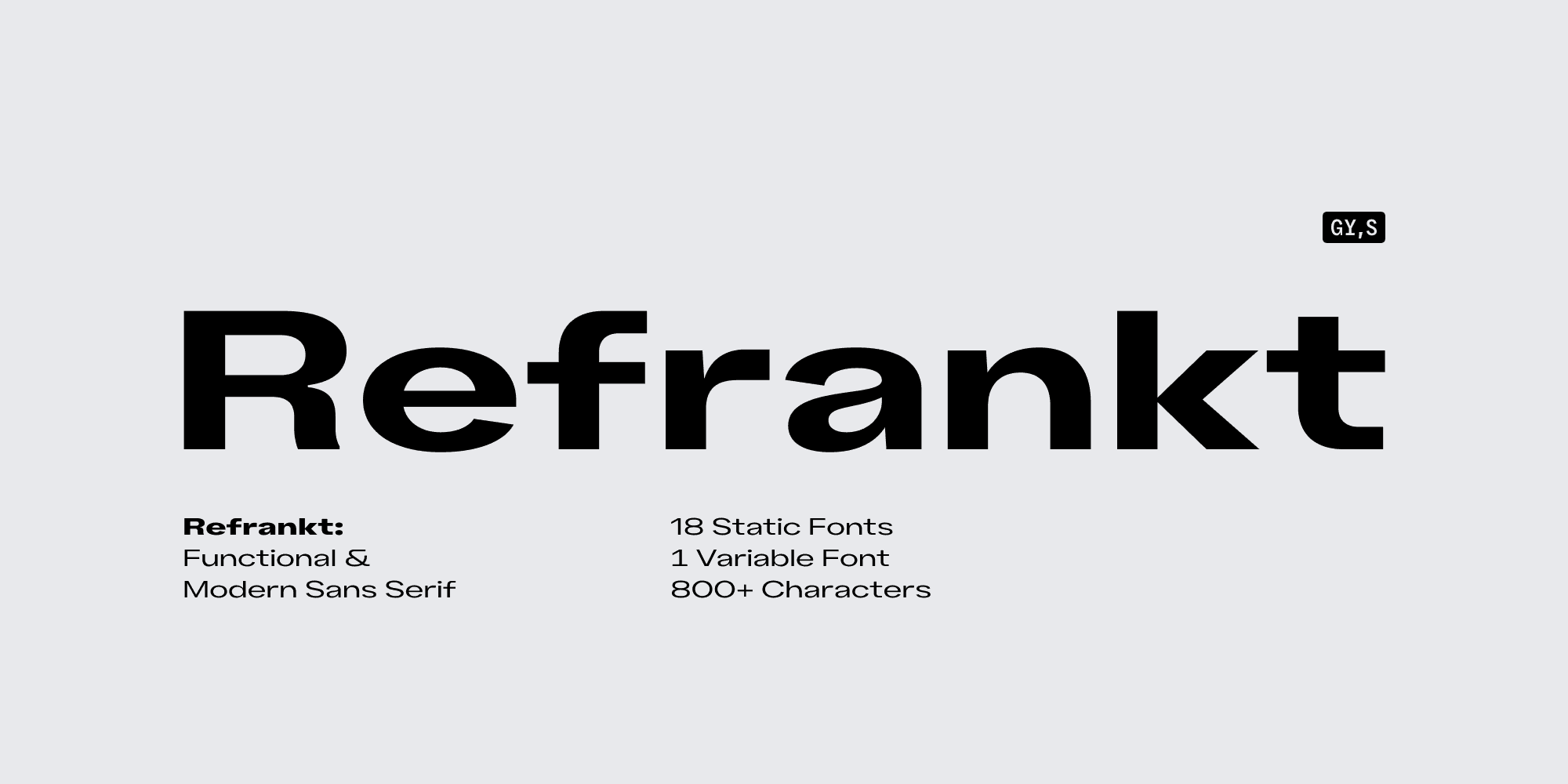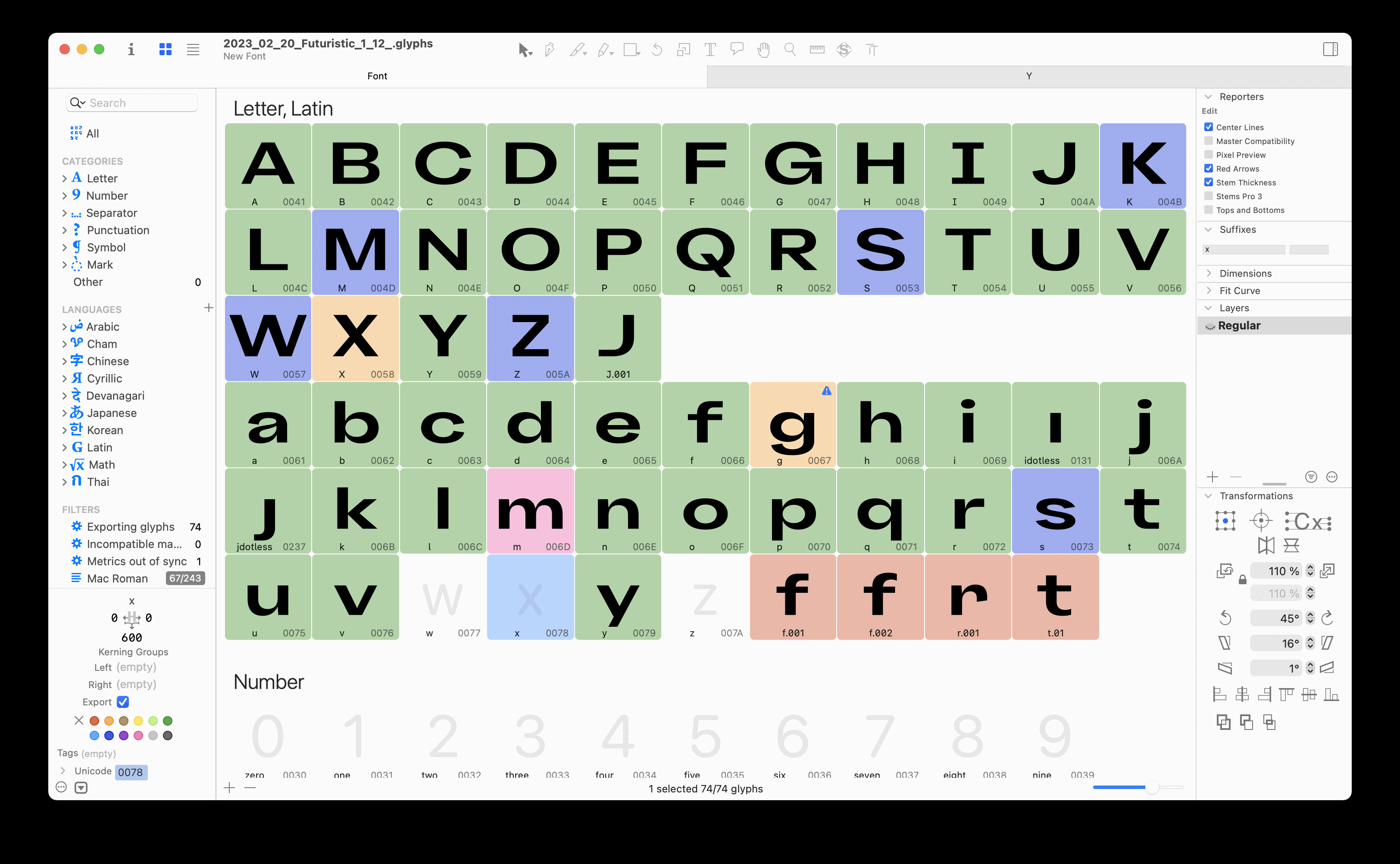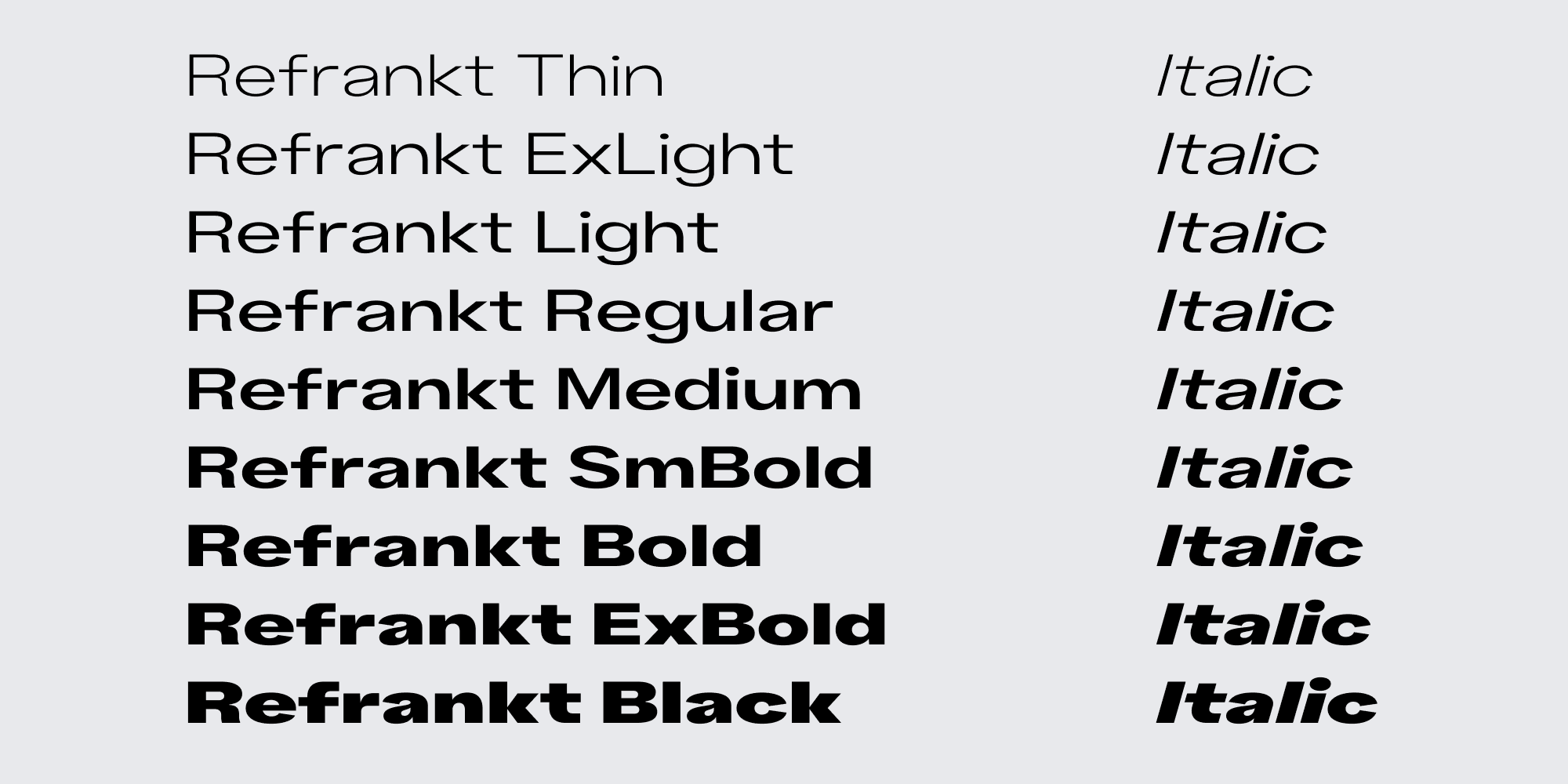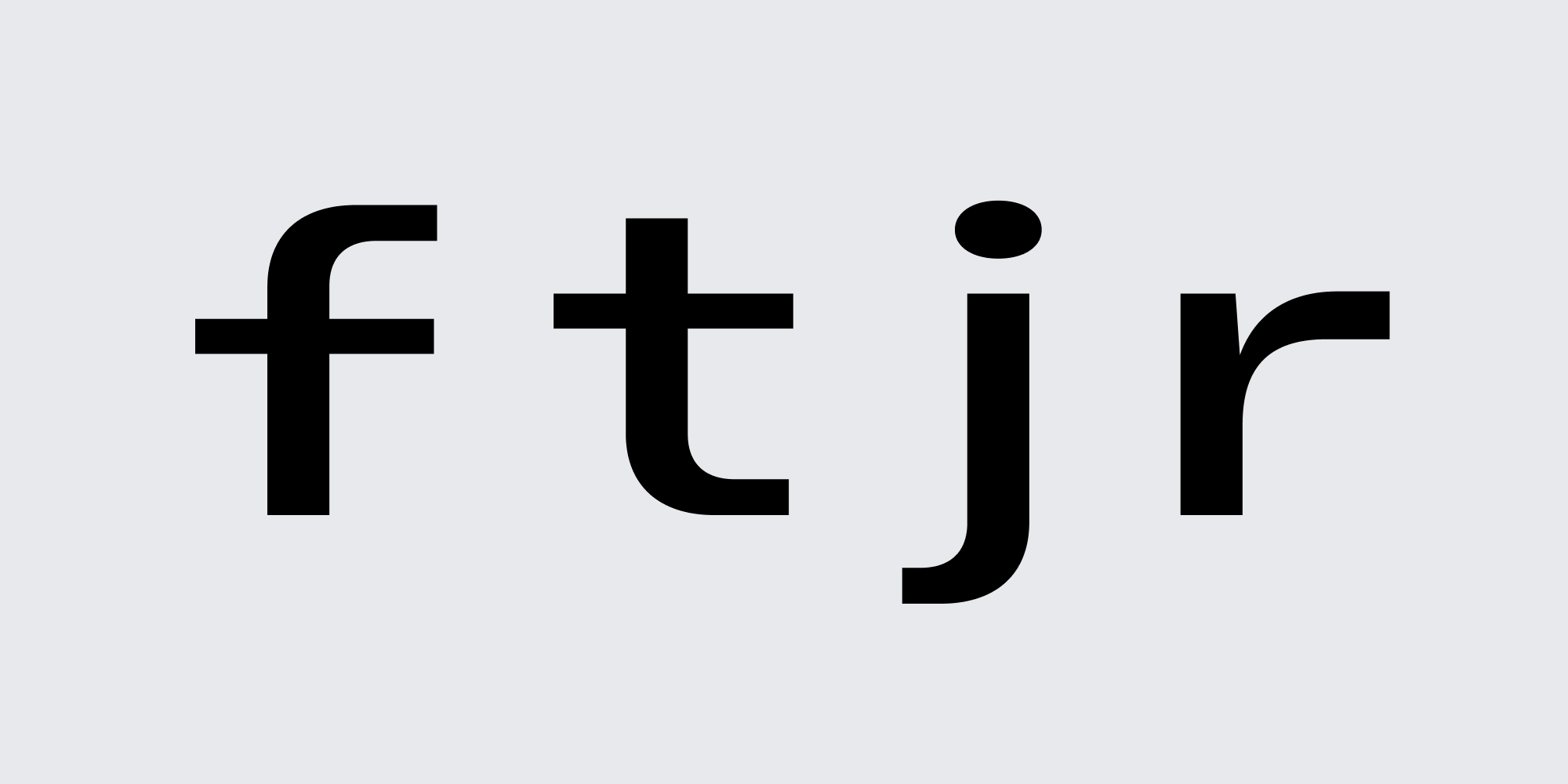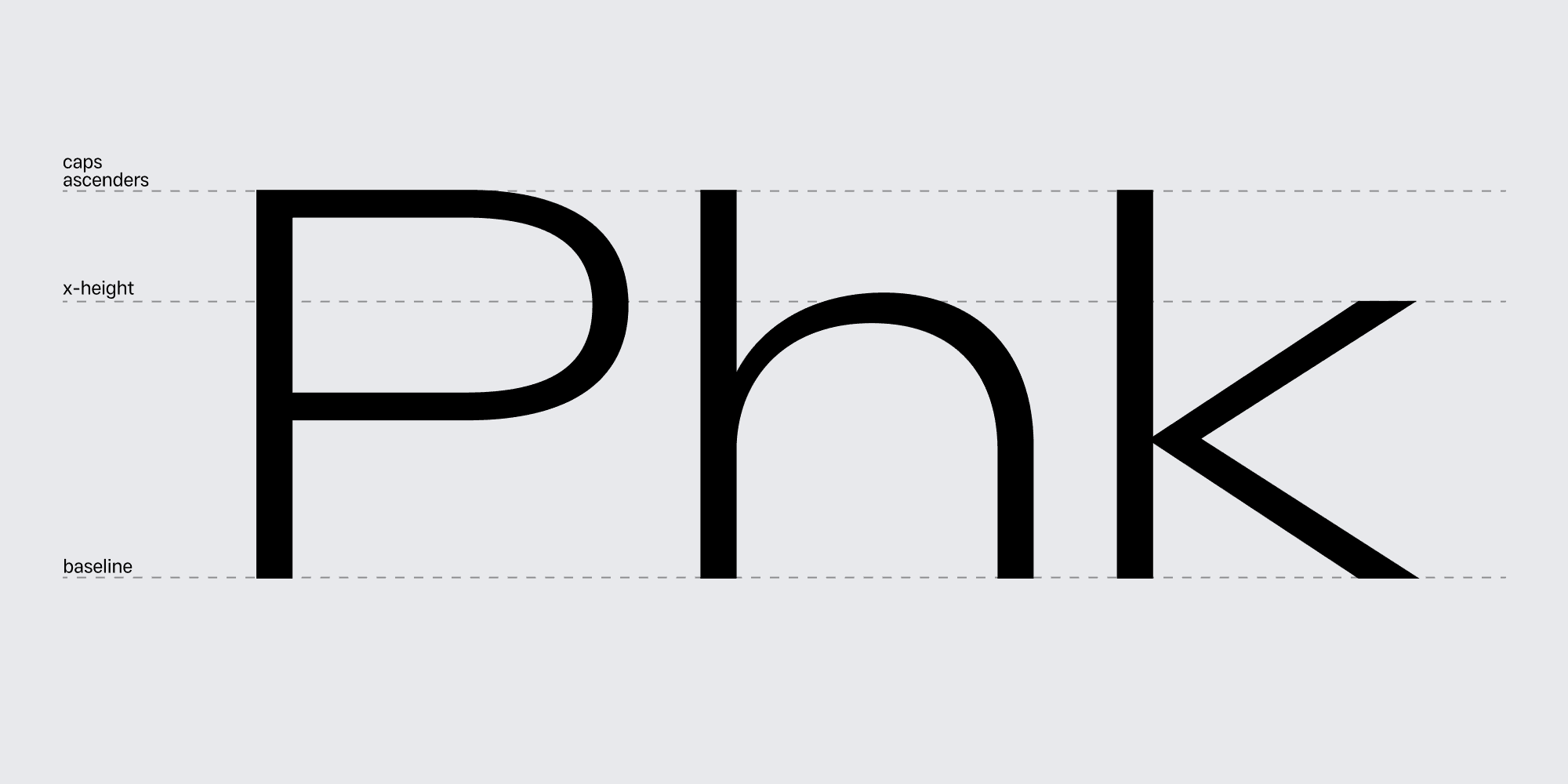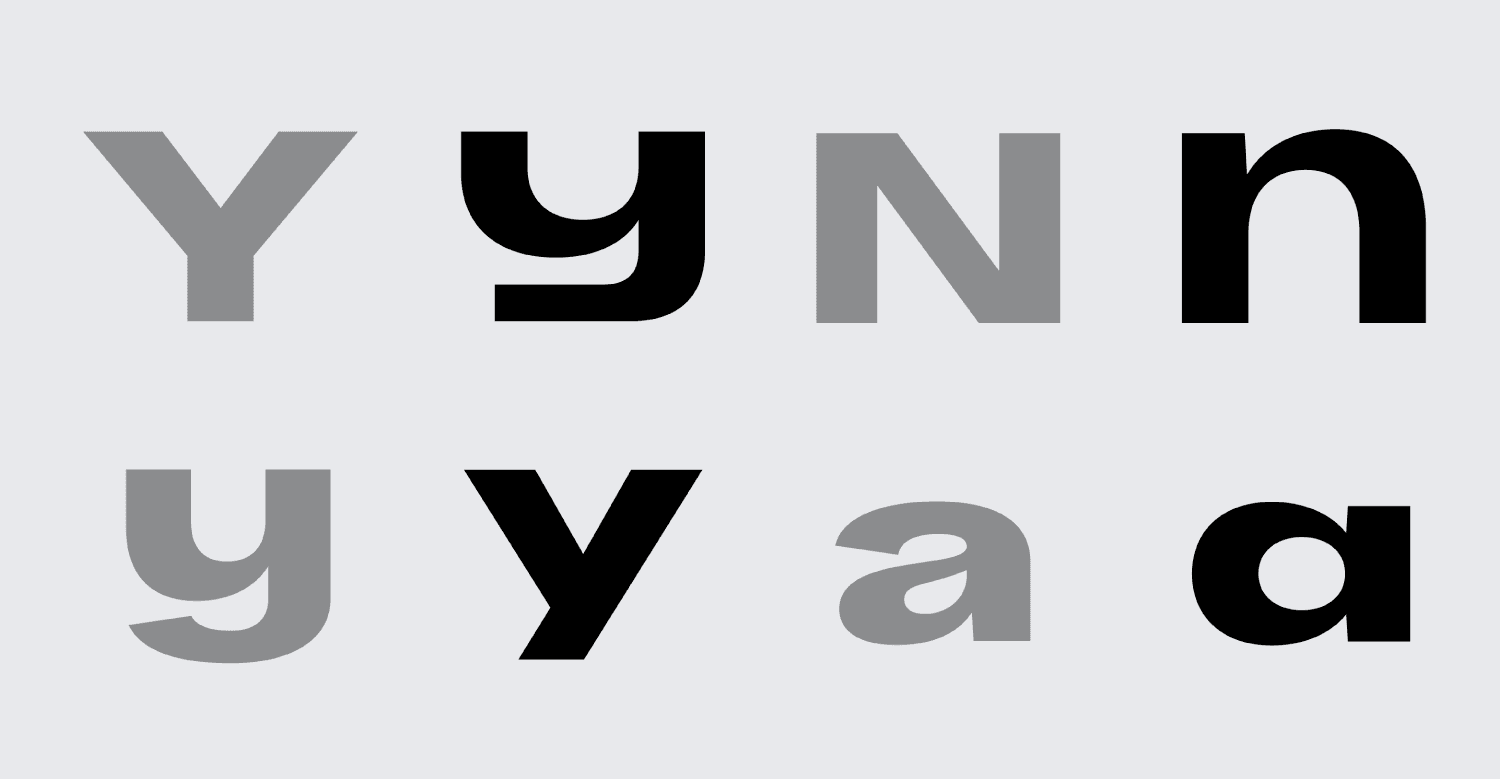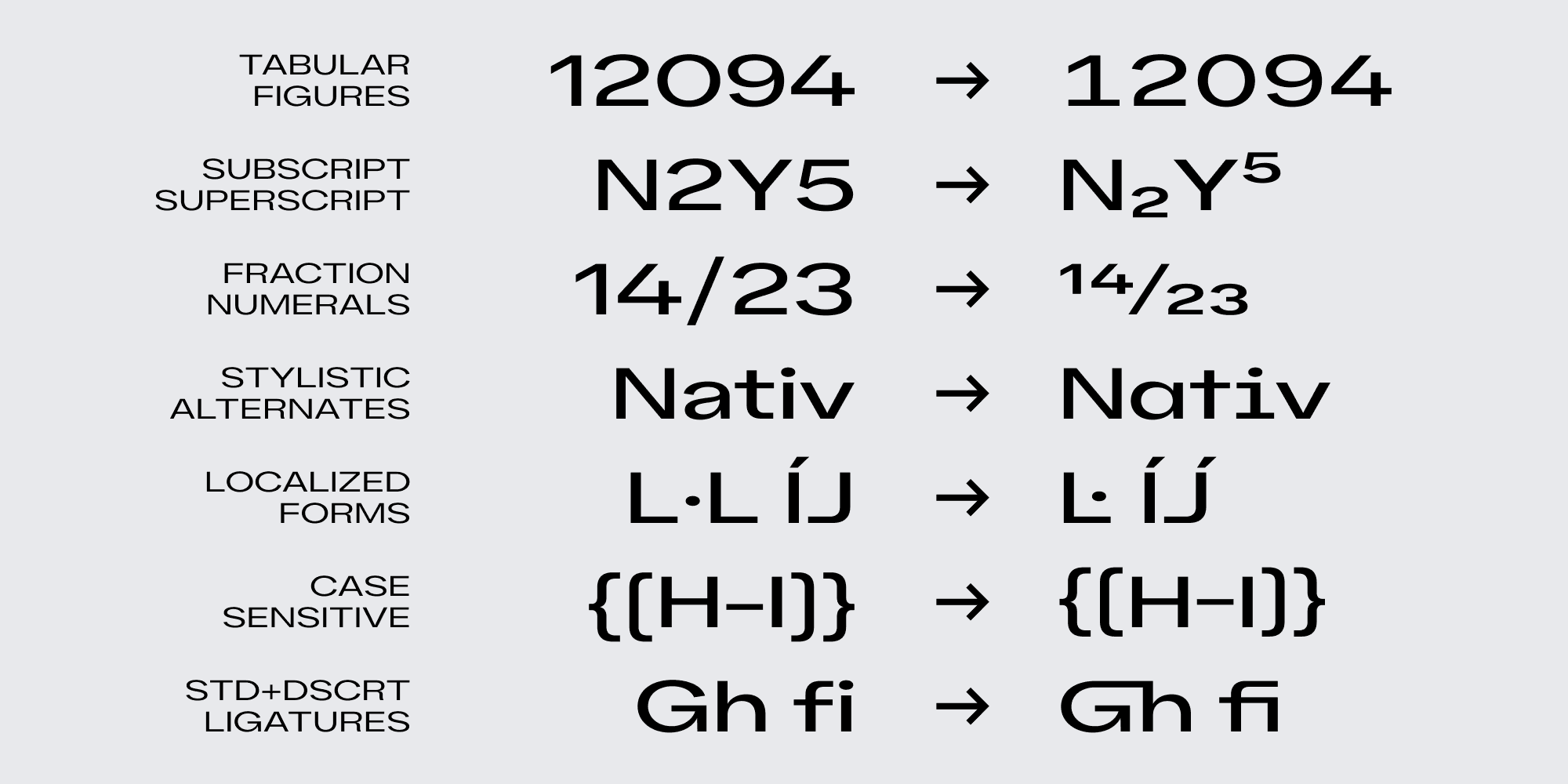
Refrankt: Designing Futuristic Font Family
Futuristic Font Family
Refrankt is a futuristic font family with 18 styles, expanded proportions, cyberpunk font aesthetic, and wide letterforms. Designed to be a versatile font for designers, Refrankt offers an extensive character set and a wide selection of font styles. Refrankt's lighter styles are more neutral and ideal for body text, while the bolder weights shine in headers and headlines. Those seeking maximum versatility would be pleased with a variable font incorporating all upright and italic font styles into one compact Variable Font file.
First Sketches
As a project nears its release, we like to revisit our initial sketches to rediscover their inspiration and explore the earliest versions of each letterform. We can confidently determine whether we achieved our intended goals by comparing the first sketch with the final family.
One of the most notable features of the early drafts of Refrankt is its unmistakable resemblance to a monospaced font, particularly the serifs on the letter "I," which make it more prominent in any body of text. Later versions also dropped the original structure of the letter "r."
Apart from these minor details, the final version remains faithful to the original. You'll also notice that all early sketches were designed for the Regular weight. It was only later that we began working on other styles and weights.
↑ Early draft versions of Refrankt
Designing a Futuristic Type
Our work on Refrankt began in February 2023. The initial file, which evolved into Refrankt, was titled "2023_02_04_Futuristic. " It contained the first hints of Refrankt's DNA, which would endure countless revisions and carry over to the final version. Even then, we can get a gist of the futuristic font we would develop in the following months.
The most challenging aspect of the design process was finding the right balance between futuristic elements and versatility. It is easy to succumb to apparent visual features and shortcuts.
Throughout the early stages of development, we grappled with questions like, "Is monospaced design viable for a futuristic font? What is a cyberpunk font? What does a sans serif font of the future look like? Are slanted terminals outdated? Will a two-storey 'a' be part of the future of typography?"
For every project we work on, there is a crucial moment when creative freedom takes center stage. It's only once you can address all these hypothetical questions that the real work begins.
Refrankt Family Structure
Determining the appropriate size of a font family is a challenging early decision in its development. Display typefaces seem more suited to smaller families featuring fewer font styles, while more neutral type families require a broader range of styles and weights to be truly versatile. In type design, form follows function, so establishing the family structure depends on understanding the intended use of the typeface.
After careful consideration, we settled on nine font styles (Thin to Black), three of which (Thin, Bold, and Black) had to be drawn manually to ensure smooth interpolation. The same structure was maintained for slanted styles, resulting in 18 styles and one fully variable font. The standard stem in the thinnest style (Thin) is 60 units, while the fattest (Black) measures a substantial 300 units.
↑ The final structure of Refrankt futuristic font family
Flat Terminals
From the outset, we decided to keep all terminals flat, eventually becoming the defining feature of the entire type family. The smooth connection between the stem and the flat terminal became a recurring element, too. Additionally, the flat terminals created a striking contrast with the curved bowls and counters, accentuating the expanded proportions of the typeface and heightening its cyberpunk type character.
Notice also how simple geometric components are repeated throughout the typeface. Despite being a relatively minor detail, the repetition makes it an element on which the look of the entire family is primarily based. It finds its way into multiple glyphs, sometimes quite unexpectedly.
↑ Flat terminals throughout the family
Vertical Metrics
To further emphasize Refrankt's expanded proportions, we aligned ascenders with uppercase characters. This decision compacted vertical metrics, reducing line height. In a sans serif typeface, shorter ascenders create a uniform rhythm within body text. Given the broader proportions, we aimed to ensure Refrankt was as consistent as possible in all aspects.
Setting vertical metrics can be tricky because different apps, systems, and browsers handle typefaces differently. Essentially, you're forced to go with a more applicable approach to a project. For Refrankt, the metrics are set up so that the webfont is displayed uniformly across all devices and browsers, and Typo metrics are used whenever possible.